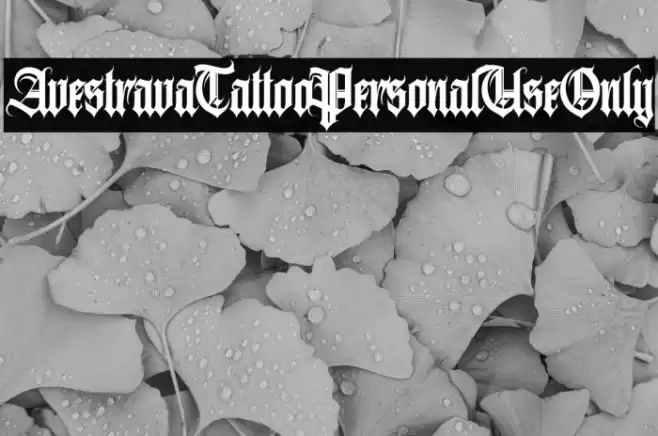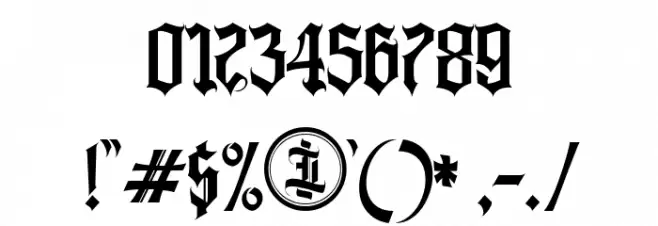
AvestravaTattooPersonalUseOnly Font
AvestravaTattooPersonalUseOnly Description
This font exhibits a classic Blackletter style, characterized by its intricate and ornate design. The letters are bold and angular, with sharp, pointed serifs and elaborate flourishes that give it a dramatic and historical appearance. The uppercase letters are particularly elaborate, featuring additional decorative elements that enhance their visual impact. The lowercase letters maintain the same stylistic elements but are slightly more restrained, ensuring readability. The numerals and special characters are consistent with the overall style, adding to the cohesive look of the font. This typeface evokes a sense of tradition and formality, often associated with medieval manuscripts and Gothic architecture.
A bold, ornate Blackletter font with intricate serifs and flourishes from Uncategorized fonts.
- Font: AvestravaTattooPersonalUseOnly
- Proposed Projects: Ideal for tattoo designs, historical documents, certificates, and decorative posters.
- Character Spacing: Tight
- Overall Style: Vintage
- Use Case: Logos, Headlines, Decorative text